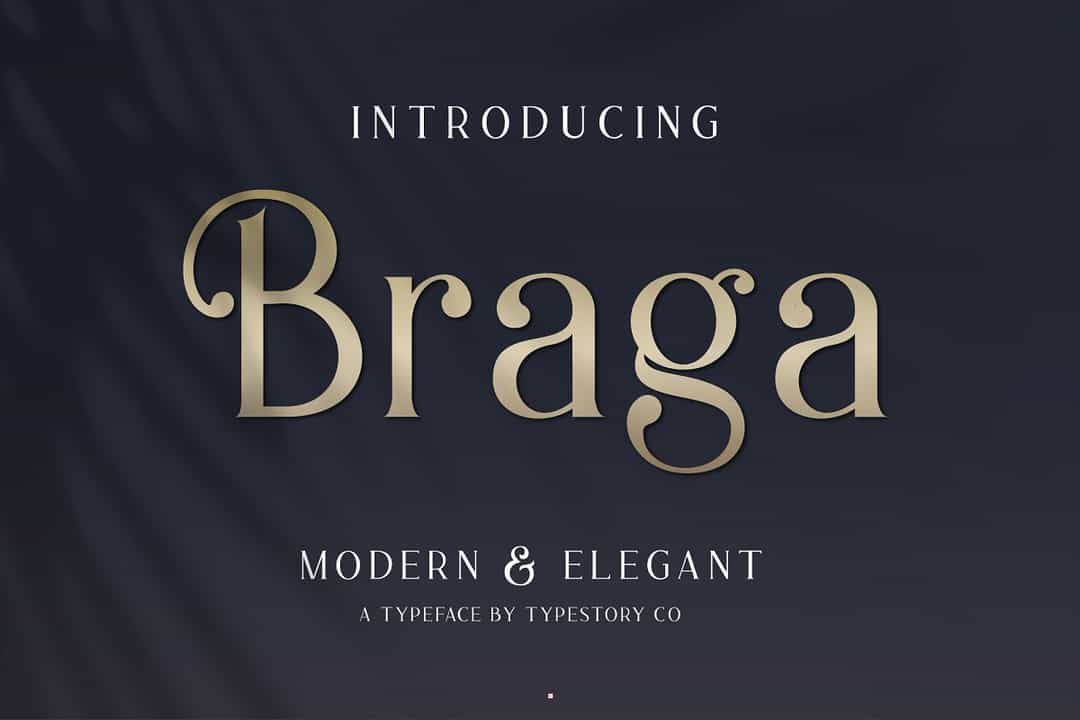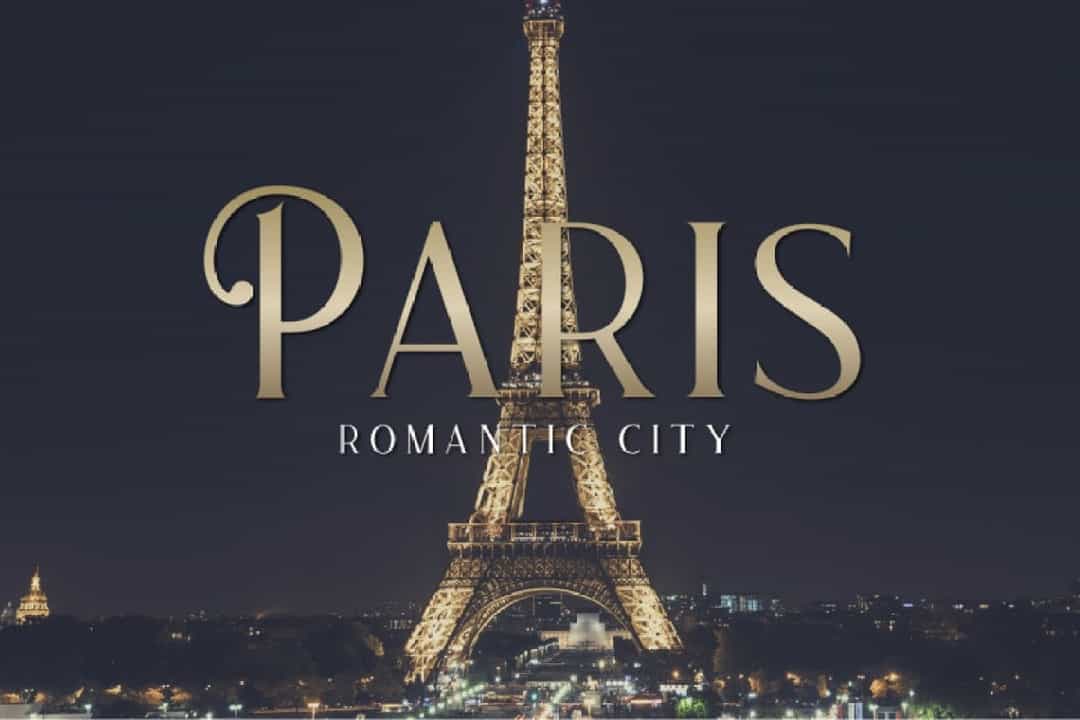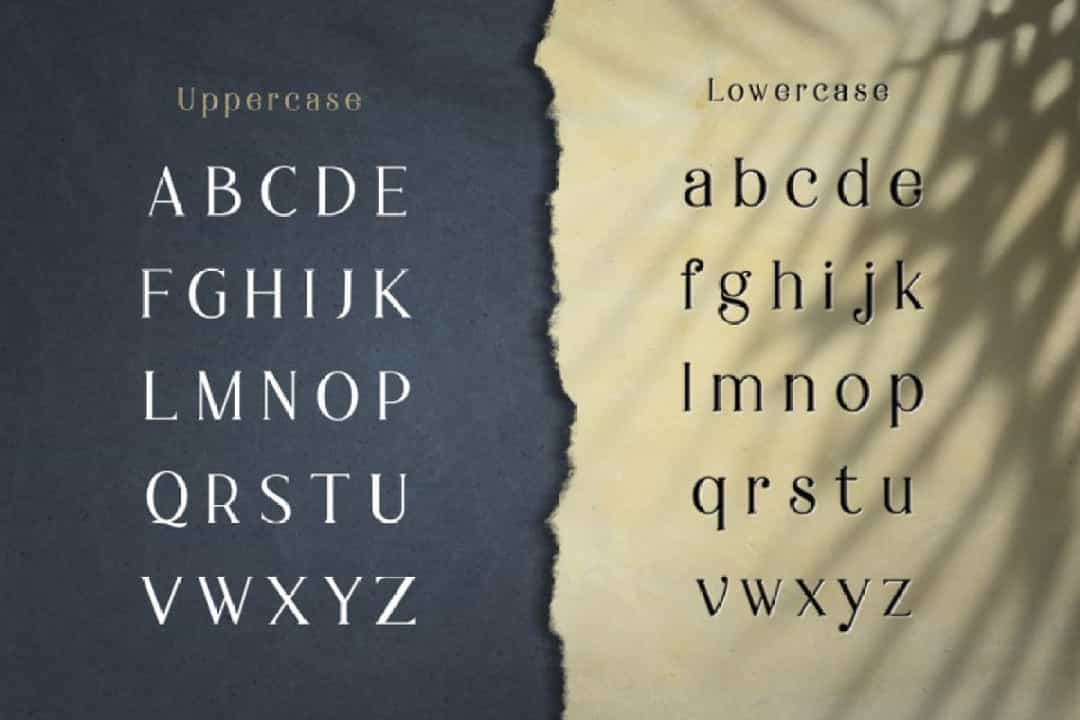
Discover Braga Serif Font, part of the Serif collection—a versatile and unique font perfect for adding a personal touch to your projects. Download it for free and enjoy crafting designs with style, from invitations to social media posts. This font is available exclusively for personal use, giving you the freedom to create without limits. Unlock your creativity with Braga Serif Font today!
Braga is a new serif typeface with beautiful round corners, more characters, and multilingual support. Braga Font is the inspiration of fancy and classic typography. Braga Font is one of the most flexible fonts. It is possible to apply Braga font for the creation of various designs.